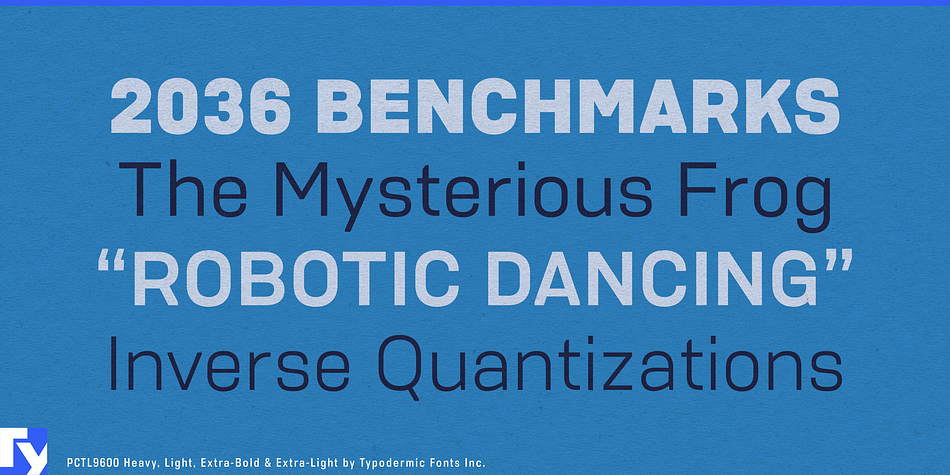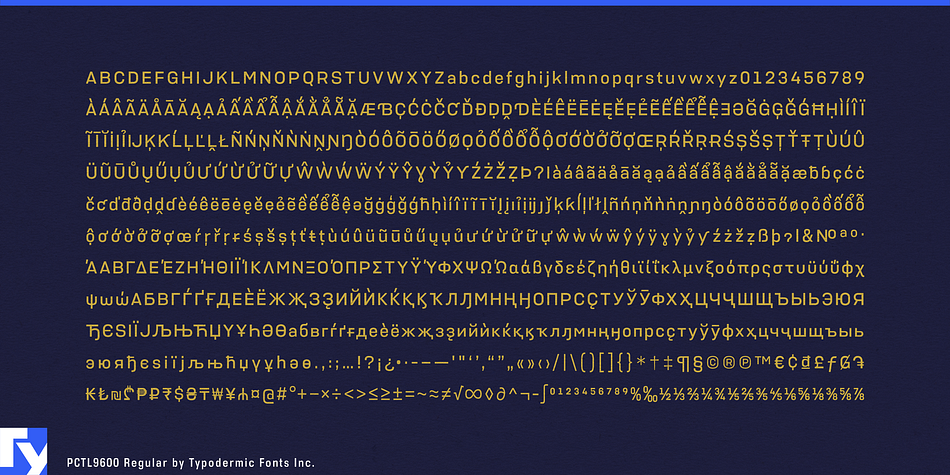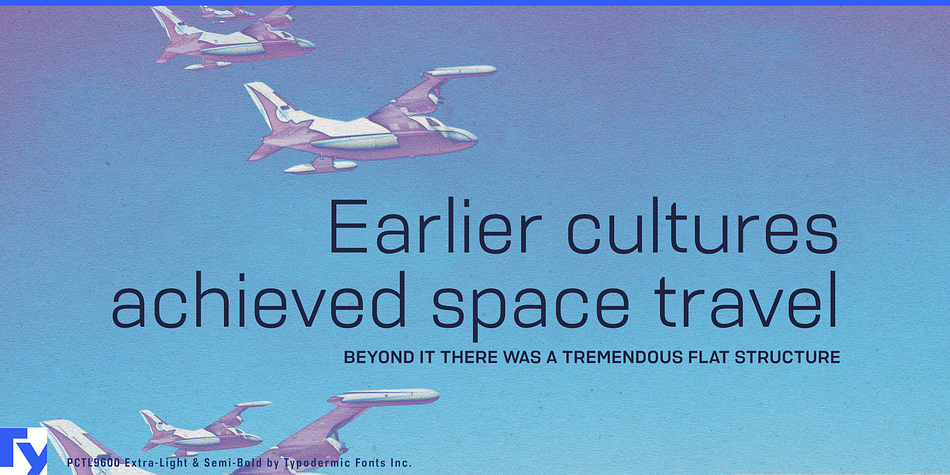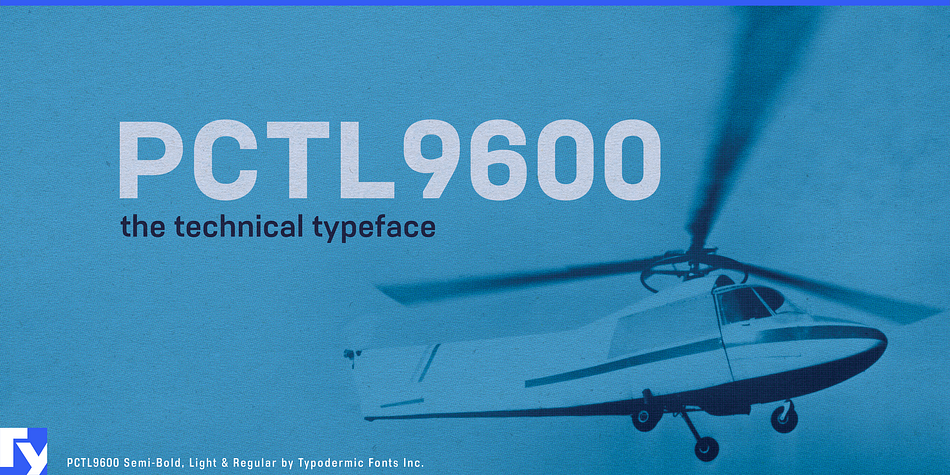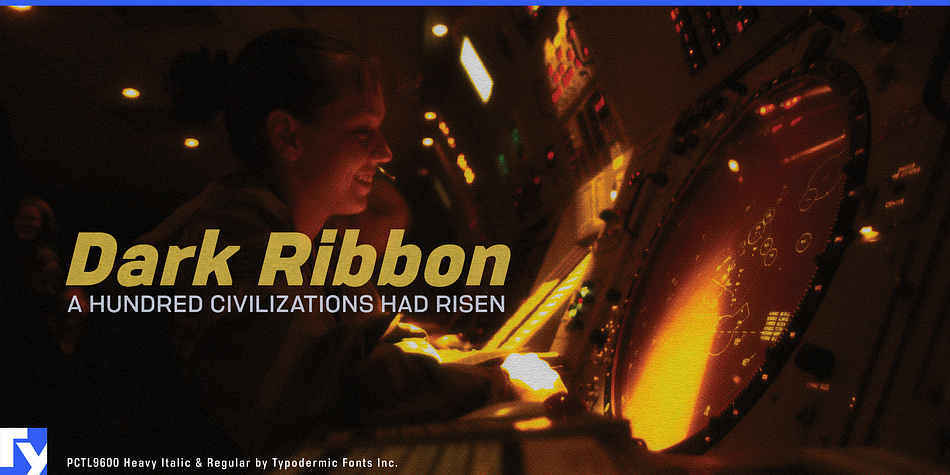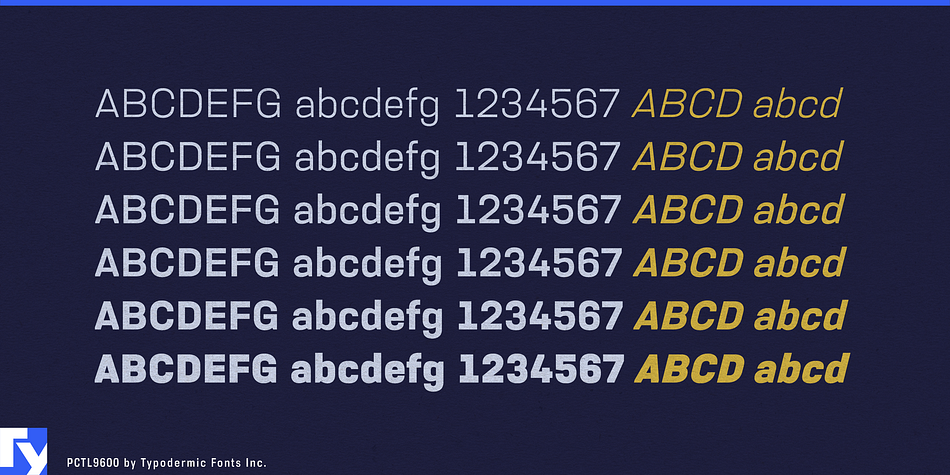
Designed by Ray Larabie, PCTL9600 is a sans serif font family. This typeface has twelve styles and was published by Typodermic Fonts Inc.
PCLT9600 is a technical sans-serif typeface. Good designers have a depository of orthodox, technical typefaces in their toolbox. Often, industrial fonts have visual hints that link them to a particular time period. A retro look isn’t always desirable, especially if you’re aiming for a contemporary or futuristic look. Not so with PCLT9600 whose sober, doctrinal design eschews retro baggage without resorting to corny techno gimmickry. If you prefer a more mechanized sensation, try PCLT4800. PCLT9600 includes 6 weights and italics. Almost all current Latin based languages are supported, including Cyrillic languages, Greek and Vietnamese